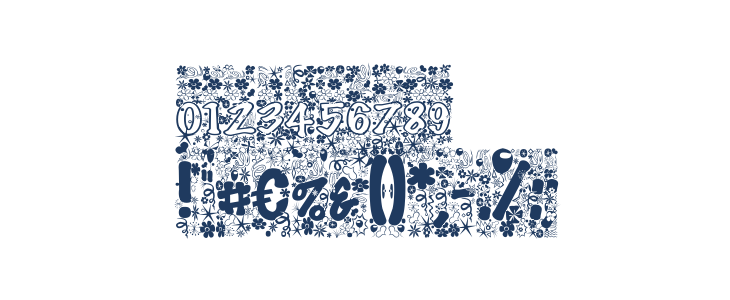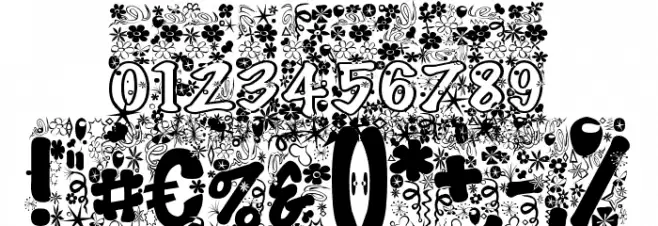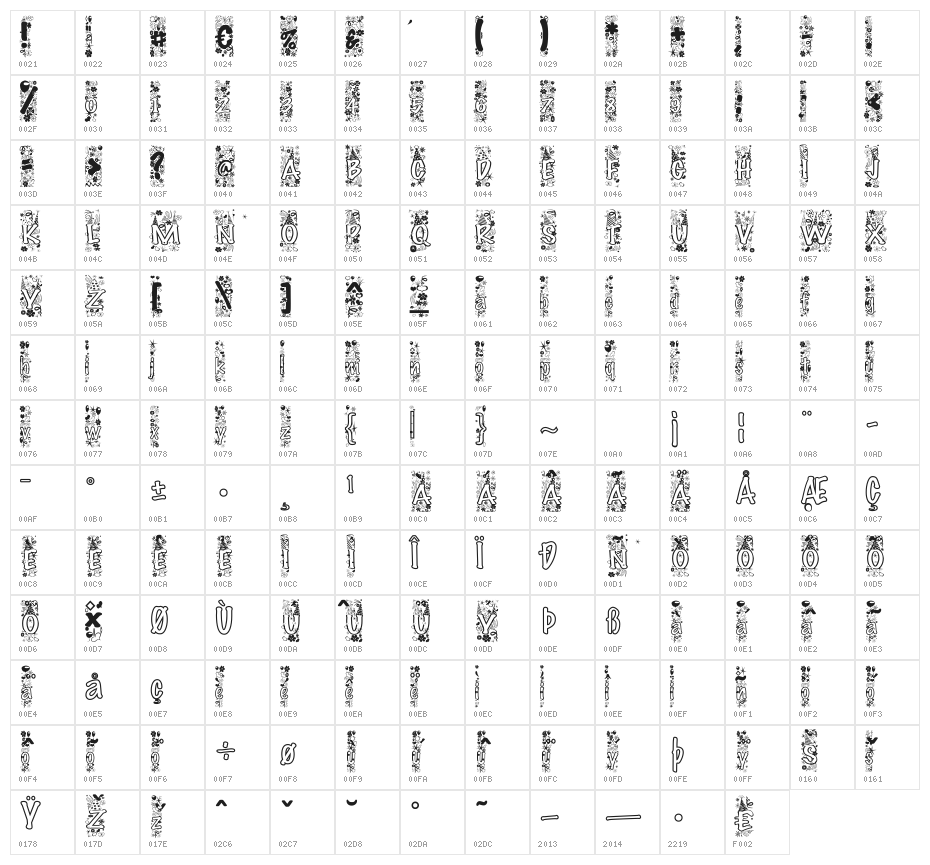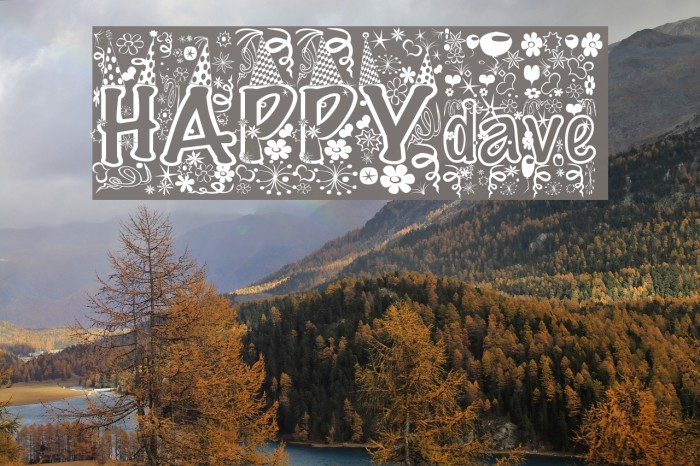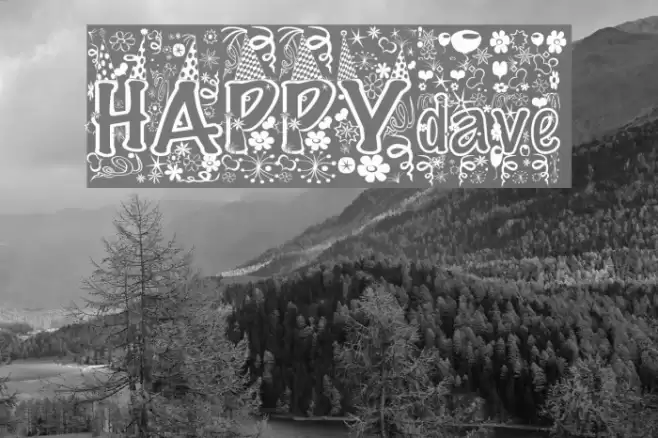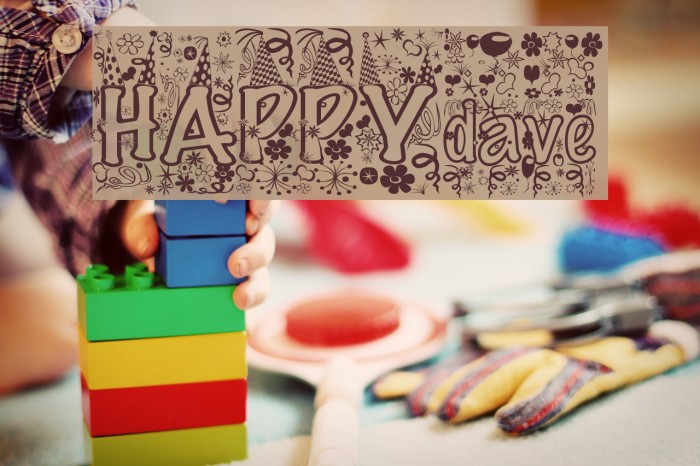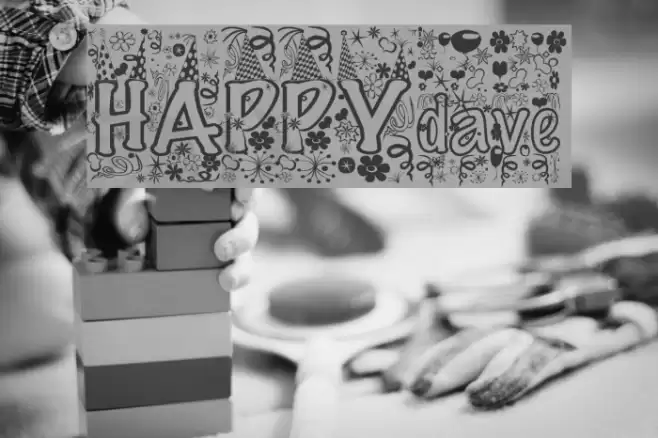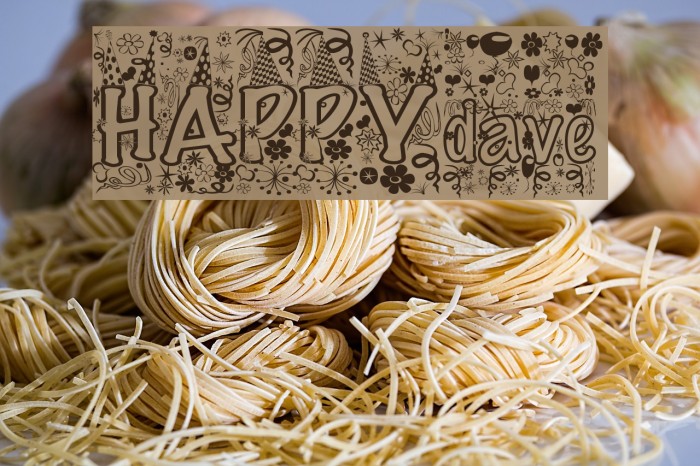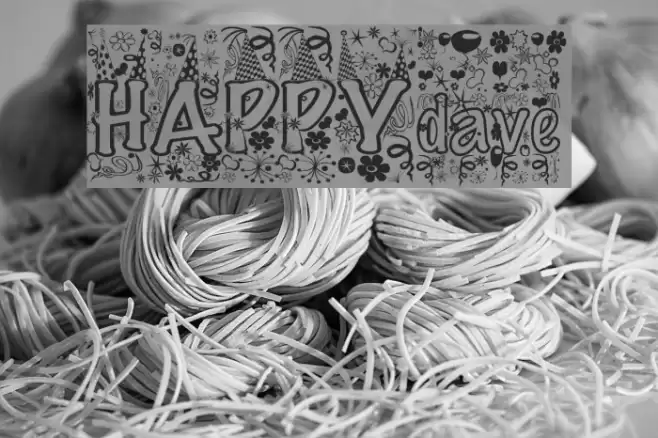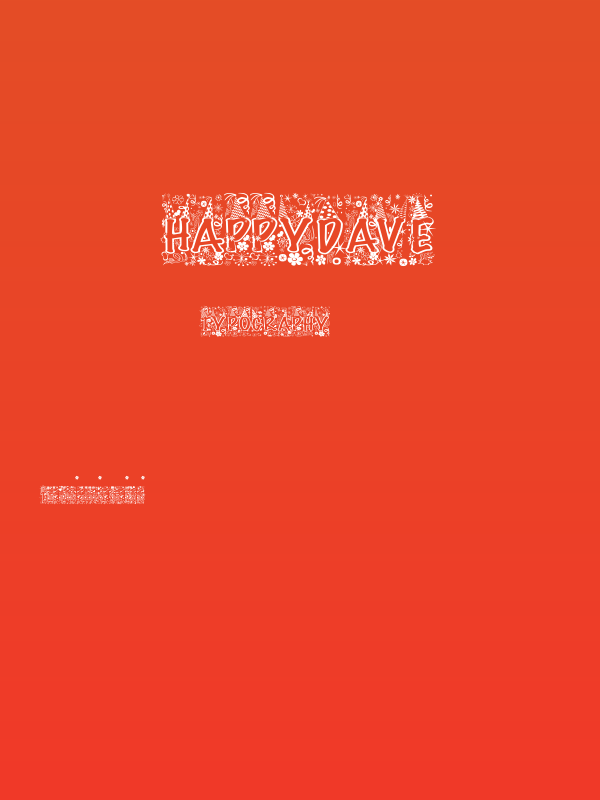
HAPPYdave Font
HAPPYdave Description
This font is a playful and decorative typeface that features a whimsical and artistic design. Each character is adorned with intricate patterns and doodles, giving it a lively and festive appearance. The uppercase and lowercase letters maintain a consistent style, with bold outlines and a slightly irregular form that adds to the charm. The numbers and special characters are equally embellished, making this font ideal for creative and fun projects. Its unique style is perfect for capturing attention and adding a touch of personality to any design.
| Proposed Projects | Ideal for party invitations, children's book covers, playful branding, and festive event posters. |